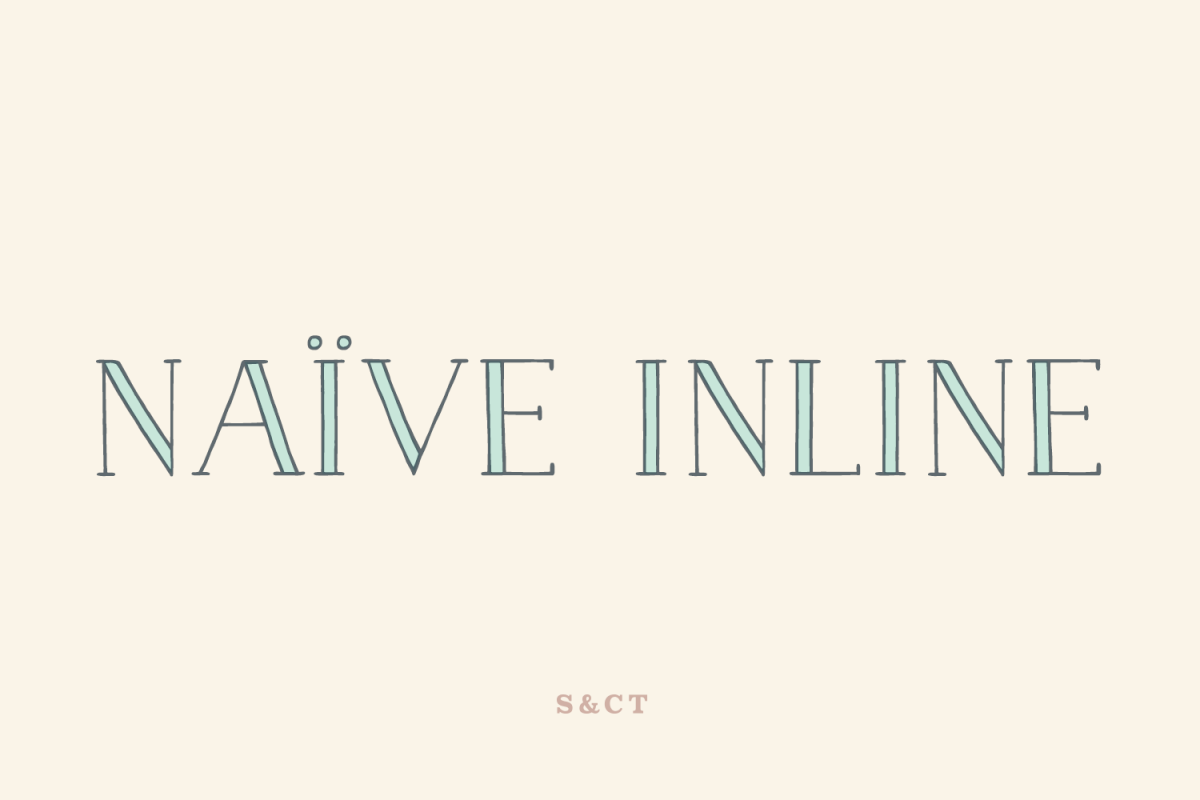
Naive Inline Family
Naïve Inline is a layered serif handwritten font designed by Fanny Coulez and Julien Saurin in Paris. Our goal was to draw a font with finely irregular lines that give a human and whimsical feeling.
Naïve Inline Light
Naïve Inline Medium
Naïve Inline Bold
Naïve Inline Shadow Light
Naïve Inline Shadow Medium
Naïve Inline Shadow Bold
Naïve Inline Dia (small diagonal lines)
Naïve Inline Half (small horizontal lines)
Naïve Inline Full (full interior shape)
Naïve Inline Demi (half interior shape)
Naïve Inline Dot (dotted interior line)
We designed three weights to assure a good readability whatever the size. They can be enhanced with five different interior patterns and three shadows to improve your designs and bring a charming and unusual feeling. To do so, you can simply superimpose the layers with a compatible software like Photoshop, the weight above and the pattern(s) below, then choose a color for each.